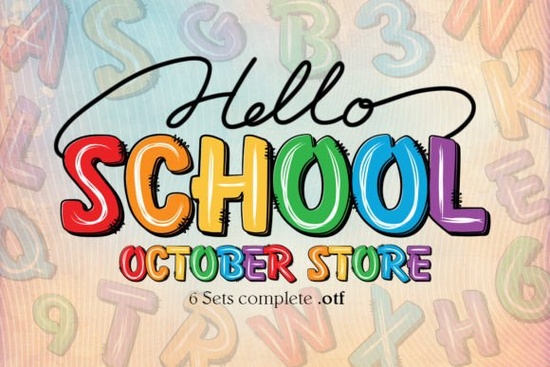
The Hello School Font is a cheerful, colorful typeface built around the excitement of school life. It captures that first-day-back energy in every letter, making it a solid pick for classroom décor, teacher resources, back-to-school flyers, and any project that needs a fun, learning-inspired look. With six vibrant color options included, you get flexibility right out of the box no extra coloring needed.
What makes this font different from other school-themed typefaces?
Plenty of fonts claim to be "school-themed," but most end up looking generic or too childish. The Hello School Font strikes a balance between playful and readable. Each character was designed with an educator's mindset, meaning it looks inviting without sacrificing clarity. That matters when you're creating materials that students, parents, or colleagues actually need to read.
The six color variants are a standout feature. Instead of manually adjusting colors in your design software, you can swap between vibrant pre-set options to match your project's palette. This saves time for busy designers and crafters who need to produce polished work quickly.
Who is this font best suited for?
This font works well across a surprisingly wide range of use cases:
- Teachers and educators worksheets, bulletin boards, classroom signs, and newsletter headers
- Print-on-demand sellers back-to-school t-shirts, tote bags, stickers, and notebook covers
- Small business owners seasonal promotions for bookstores, tutoring centers, and school supply shops
- Crafters scrapbook pages, greeting cards, party invitations, and DIY labels
- Graphic designers social media graphics, blog headers, and event posters
The versatility comes from its balanced design. It's fun enough to catch attention but clean enough to work in professional settings.
How does it compare to other colorful school fonts?
There are several creative typefaces in the colorful school category, and each brings something different to the table.
Each of these fonts has its own personality. The Hello School Font stands out for its balanced approach energetic but not overwhelming, colorful but still readable. You can also check out our full Hello School typeface review for a closer look at its features.
What projects work best with a colorful school font?
Colorful fonts like this one shine brightest in projects where visual impact matters. Here are a few ideas to get you started:
- Back-to-school sale banners Use the vibrant color options to create eye-catching promotional materials
- Classroom door decorations Welcome students with bold, cheerful lettering
- Student award certificates Make achievements feel special with colorful headers
- School event invitations Open house nights, field days, and fundraisers all benefit from a lively typeface
- Printable planner pages Add personality to organizational tools for teachers or students
- Social media posts School announcements, countdown posts, and photo overlays
Quick checklist before you start designing
- Test the font at different sizes to see where it reads best
- Pair it with a simple sans-serif for body text to keep layouts balanced
- Preview your design on both screen and print colorful fonts can look different in each